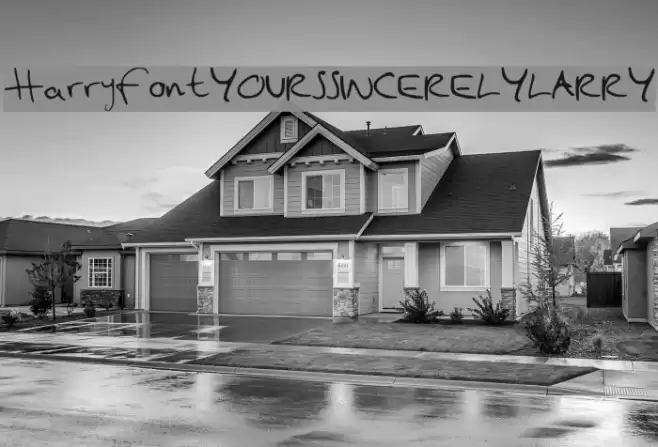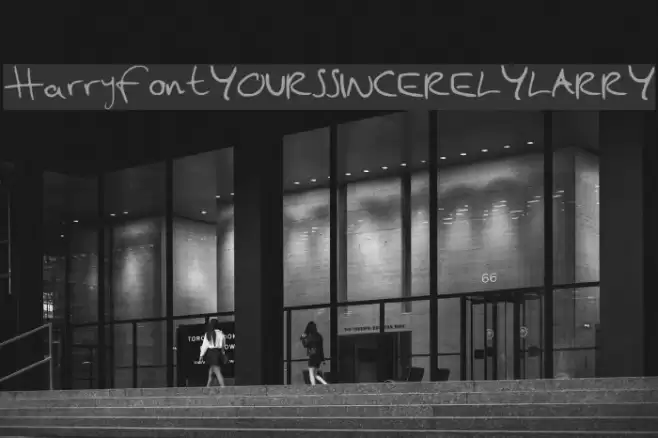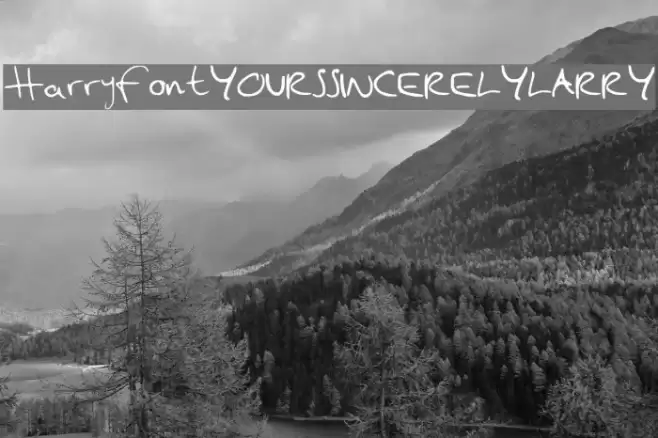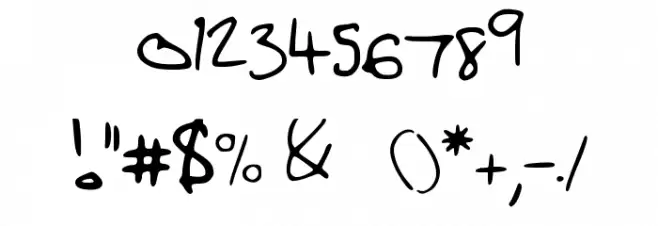
Harry_font__YOURSSINCERELYLARRY_ Font
Harry_font__YOURSSINCERELYLARRY_ Description
This font exudes a casual, handwritten style, characterized by its fluid and organic strokes. The letters are slightly irregular, giving it a personal and informal touch, reminiscent of a quick note or a personal letter. The uppercase and lowercase letters maintain a consistent style, with some playful variations in stroke width and angle. The numbers and special characters follow the same aesthetic, ensuring a cohesive look across all text. This font's charm lies in its ability to convey warmth and personality, making it ideal for projects that require a human touch.
A casual, handwritten font with fluid, organic strokes and a personal touch from Uncategorized fonts.
- Proposed Projects: Ideal for greeting cards, personal notes, informal invitations, and creative projects that require a human touch.
- Overall Style: Casual
- Use Case: Greeting cards, Personal notes, Informal invitations